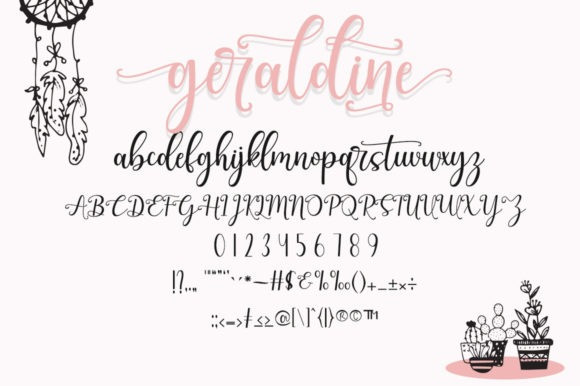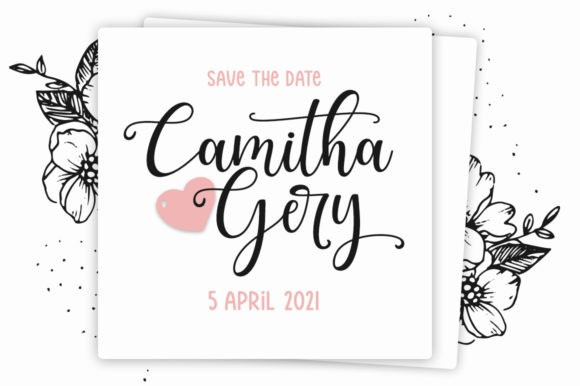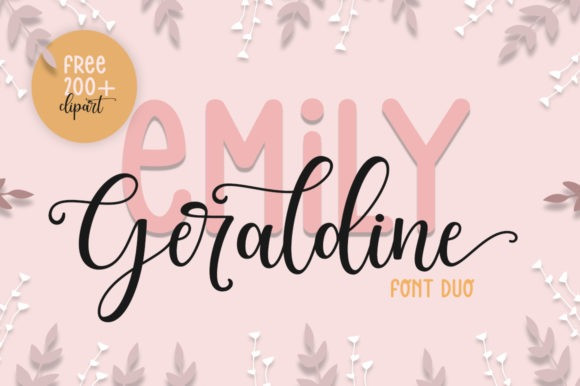
Emily Geraldine Font
Emily Geraldine Font is a lovely and versatile duo font (sans serif and script). This font is PUA encoded which means you can access all of the glyphs and swashes with ease! Get inspired by its light and approachable style and employ it to your most favorite creations.